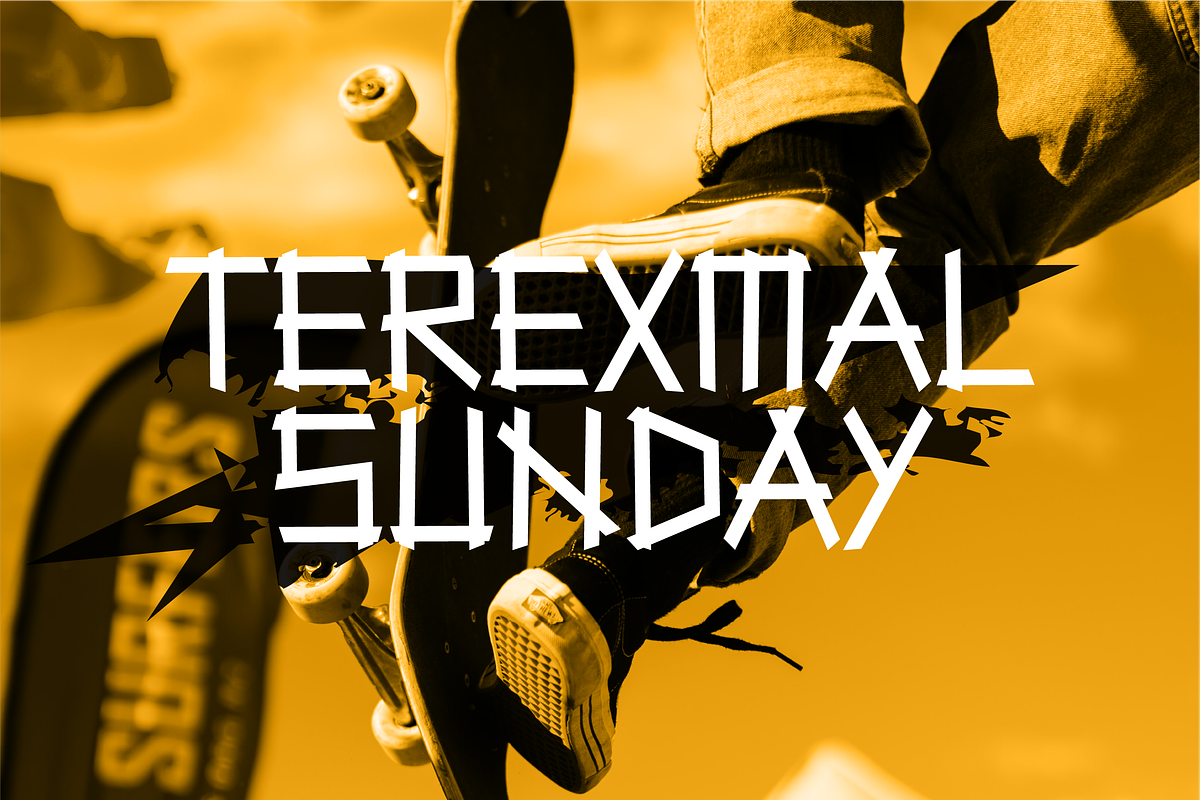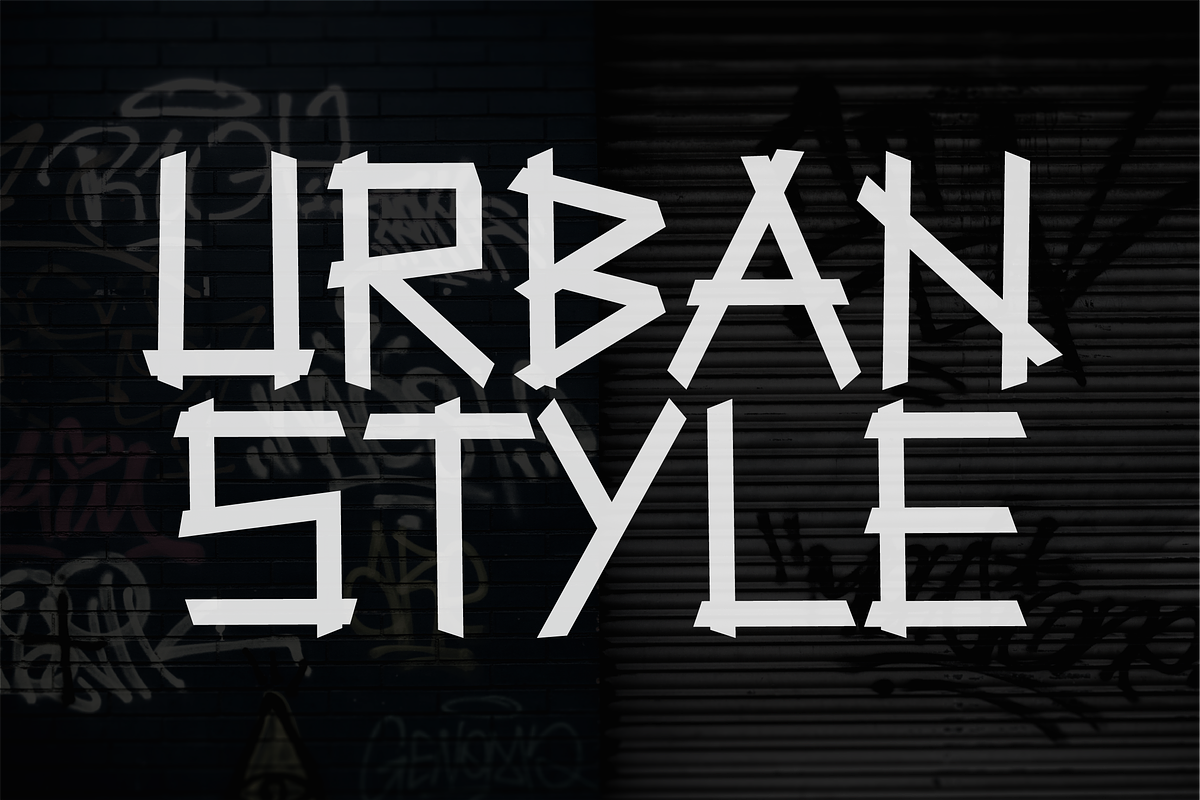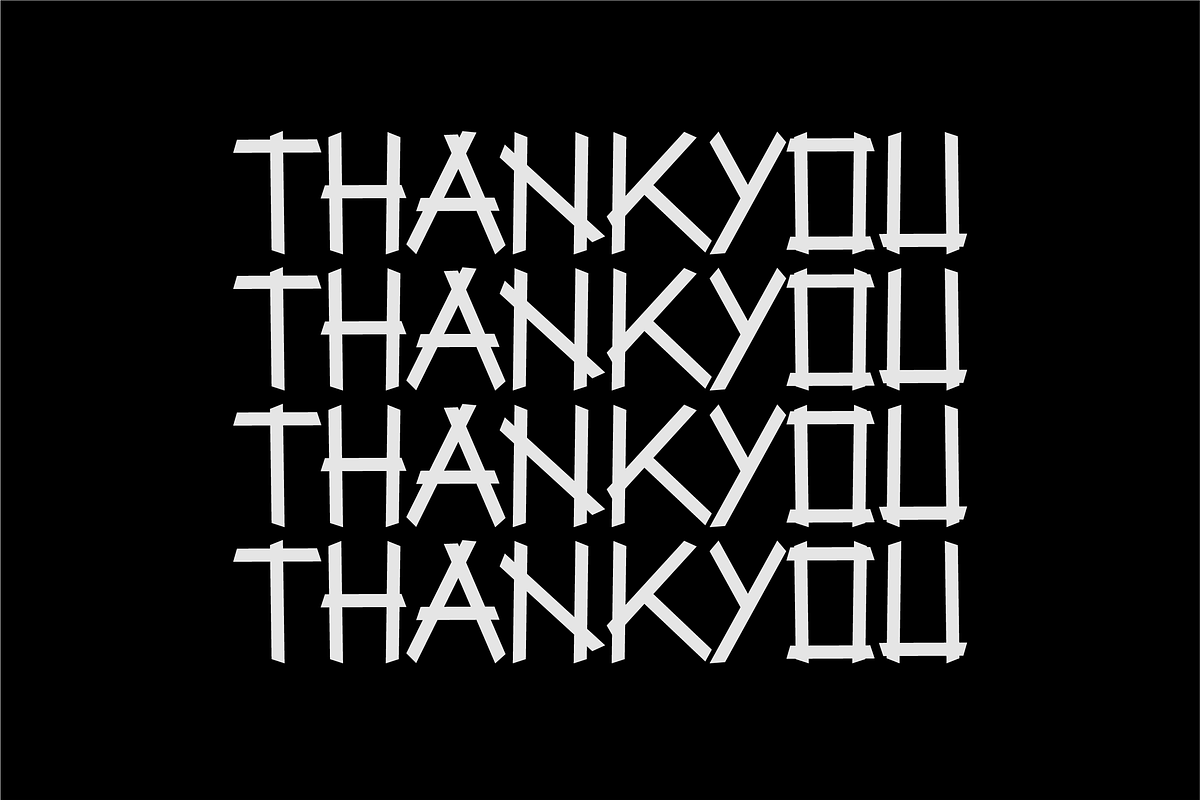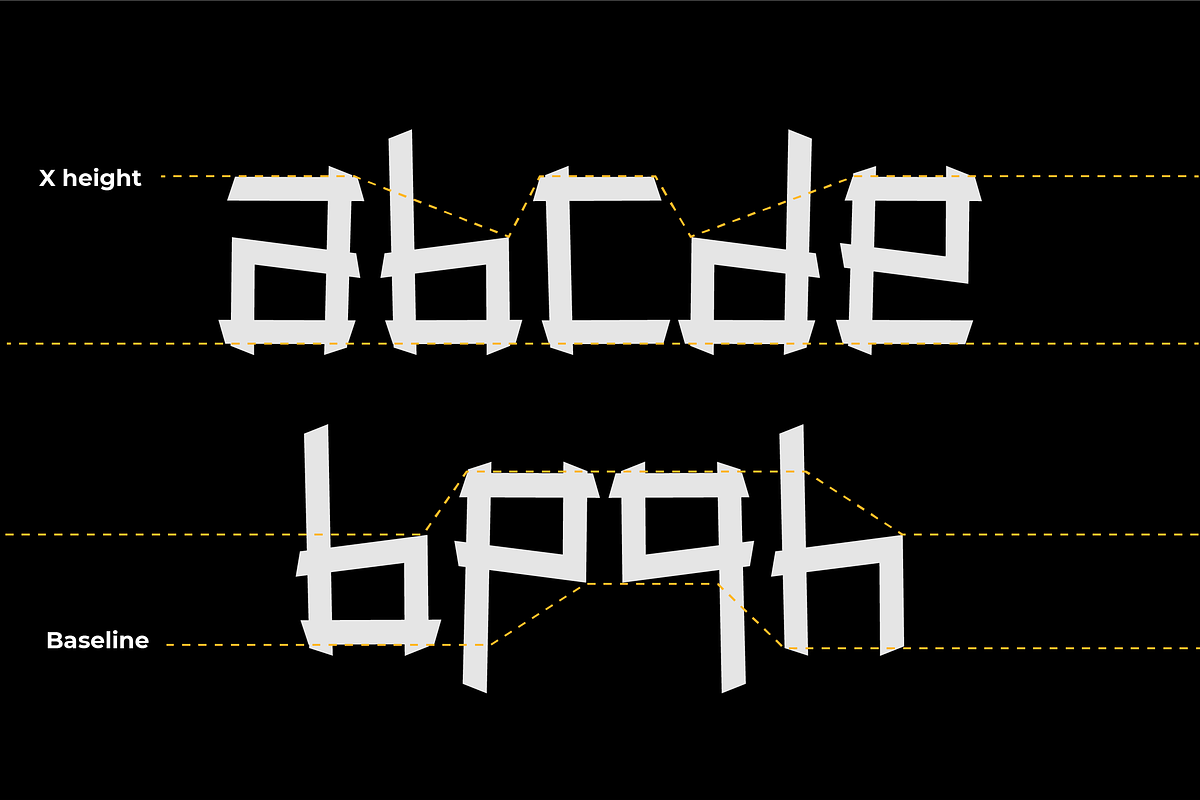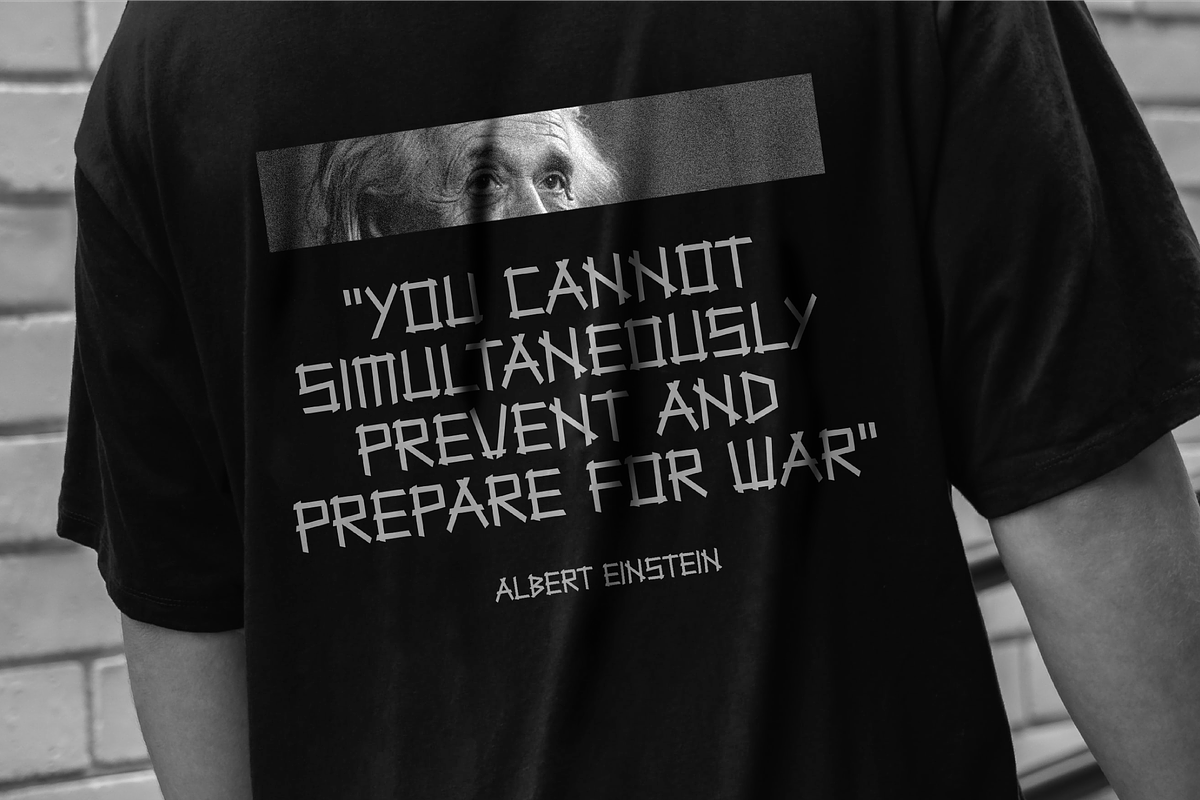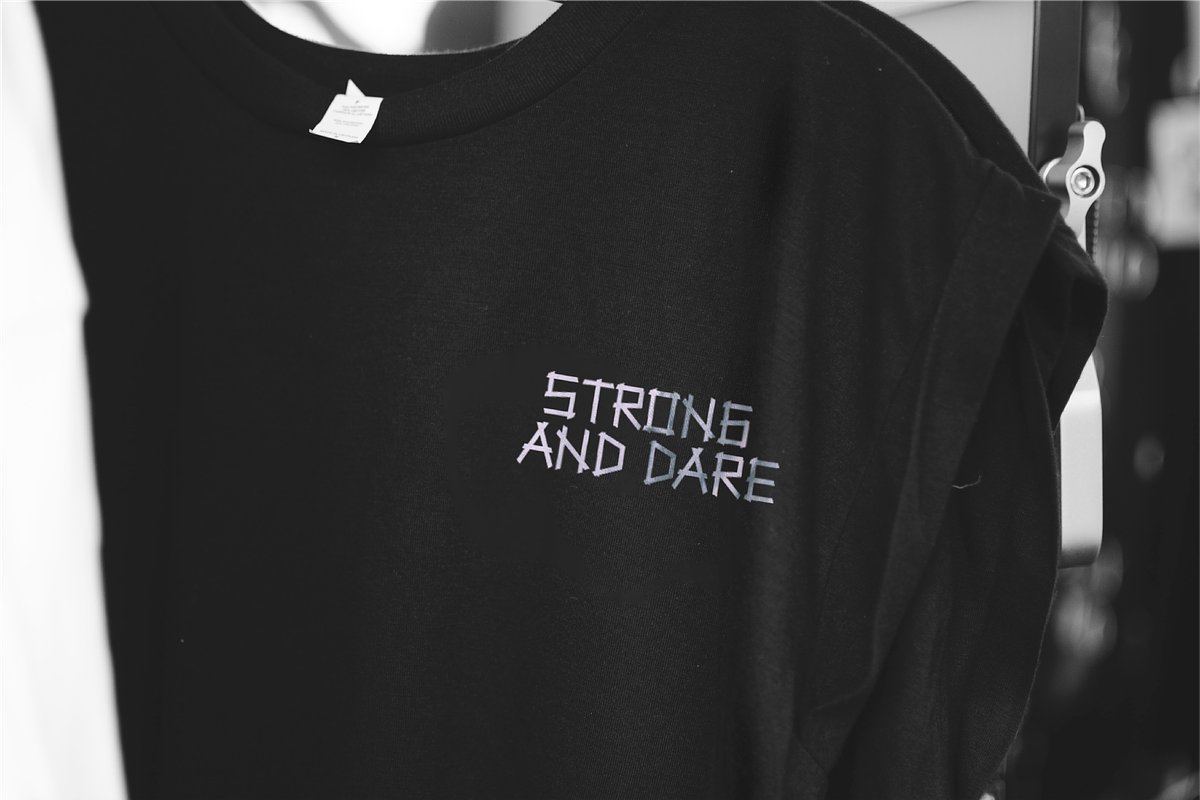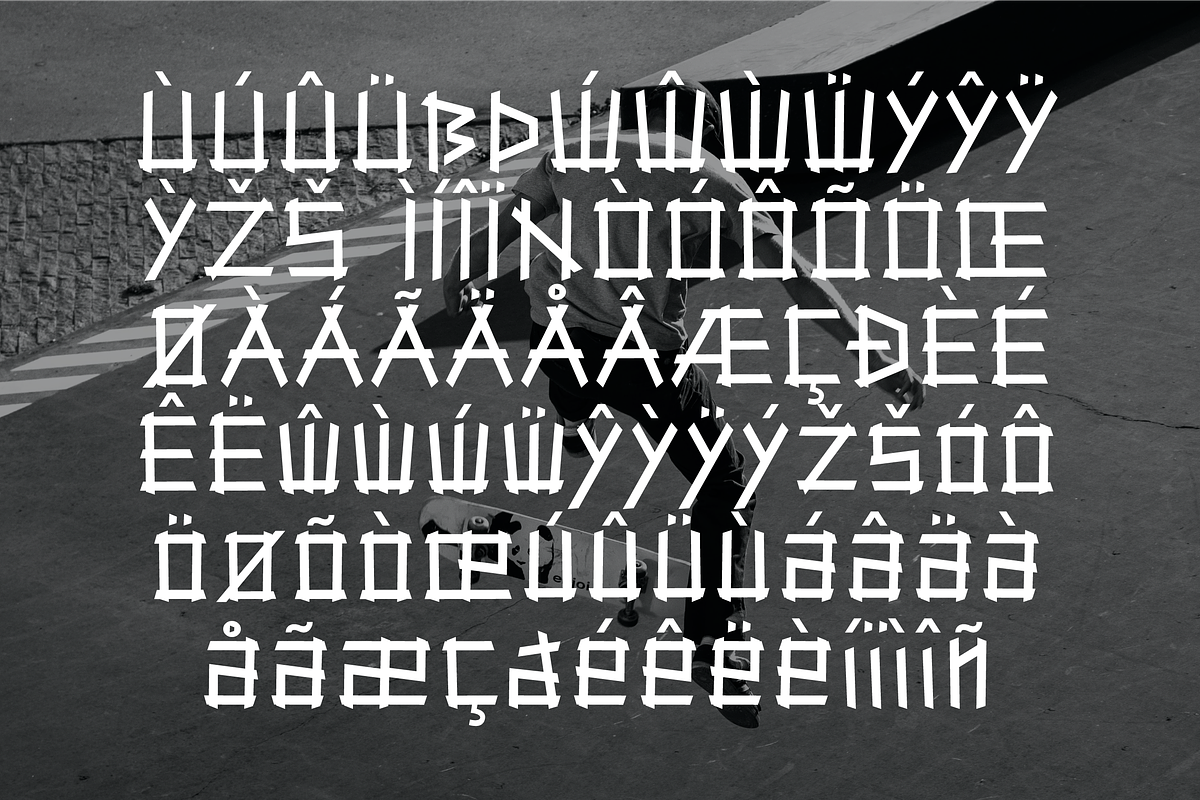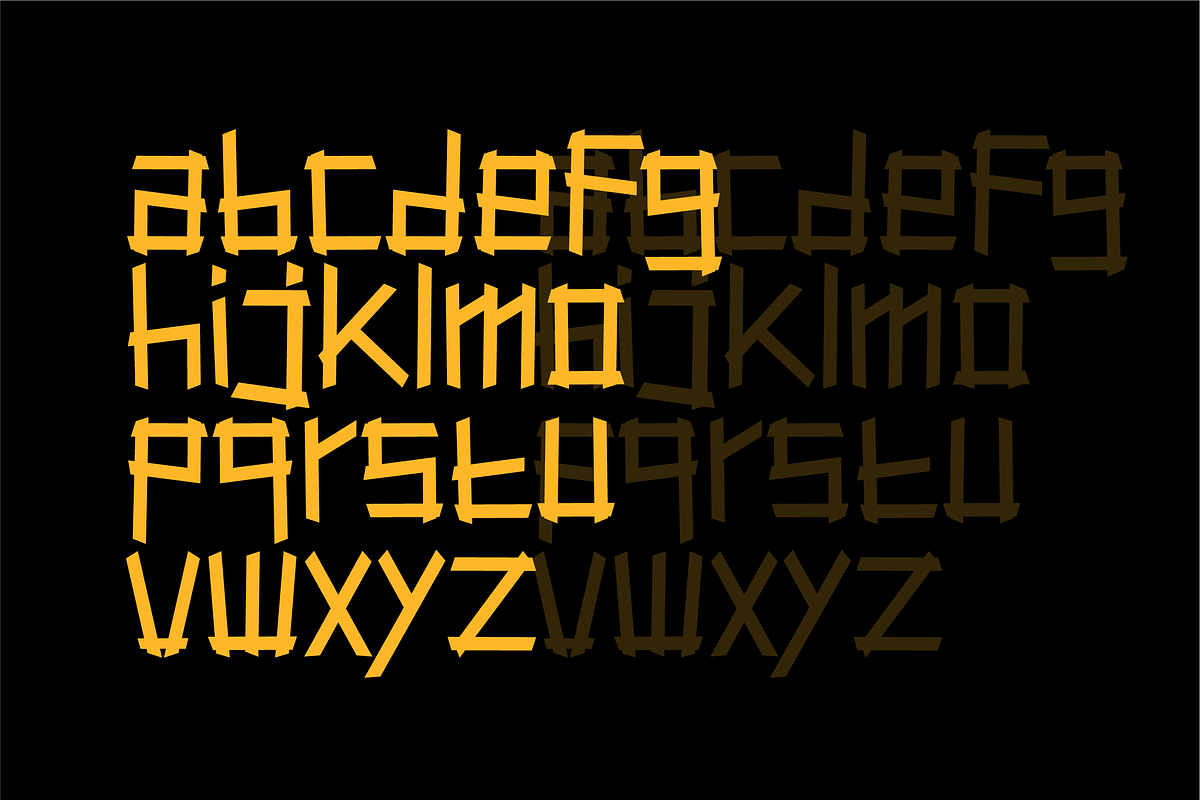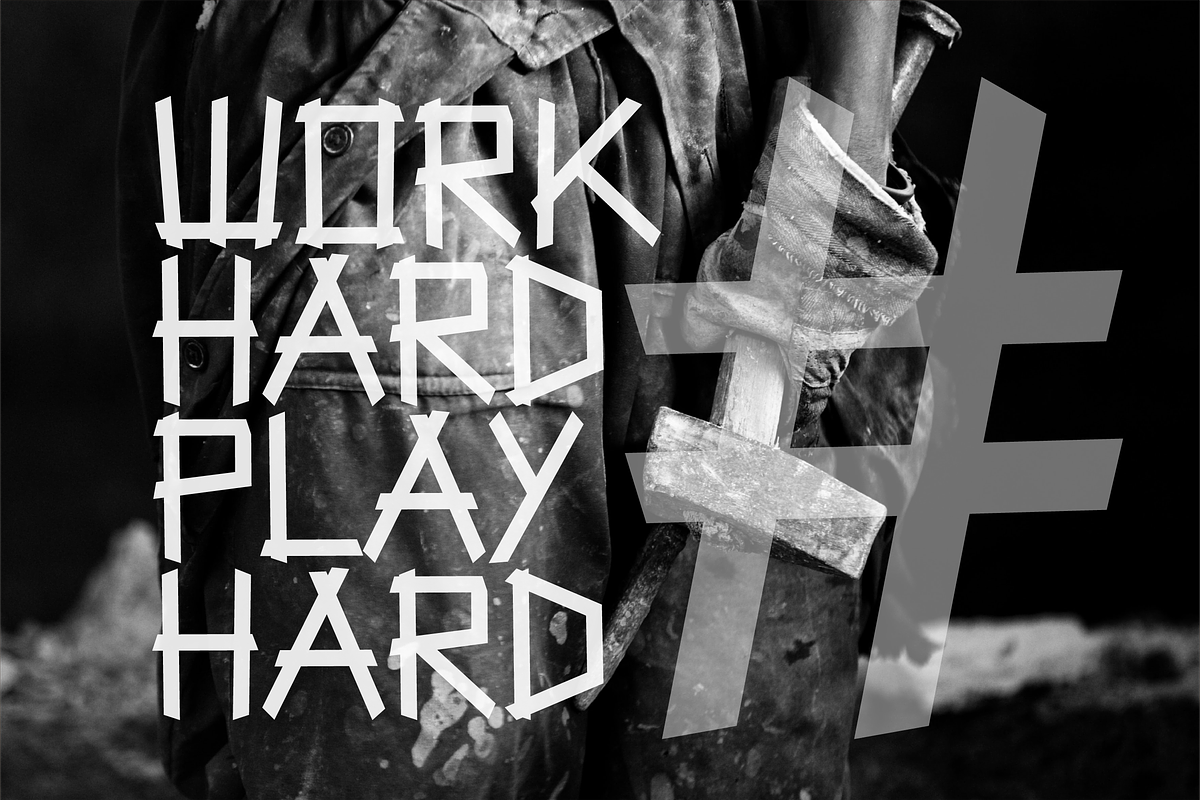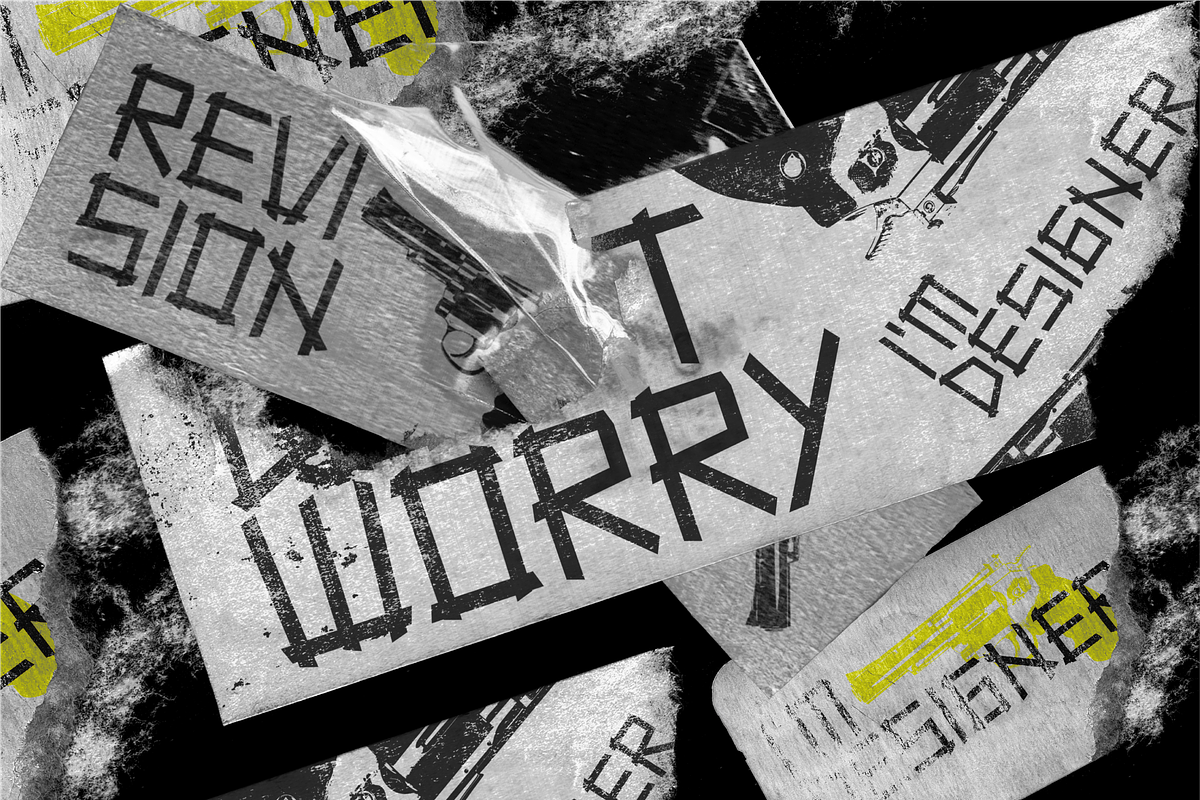
Terexmal Sunday
Terexmal sunday is a decorative typeface with an urban and modern style with unique and wild characteristics but still looks neat, suitable to make your design look more unique, modern and attractive. This typeface is also suitable for youth sports design themes such as skateboarding, bicycles, motorcycles, climbing, surfing, etc. Terexmal sunday is equipped with uppercase, lowercase, numbers, symbols and some multilingual